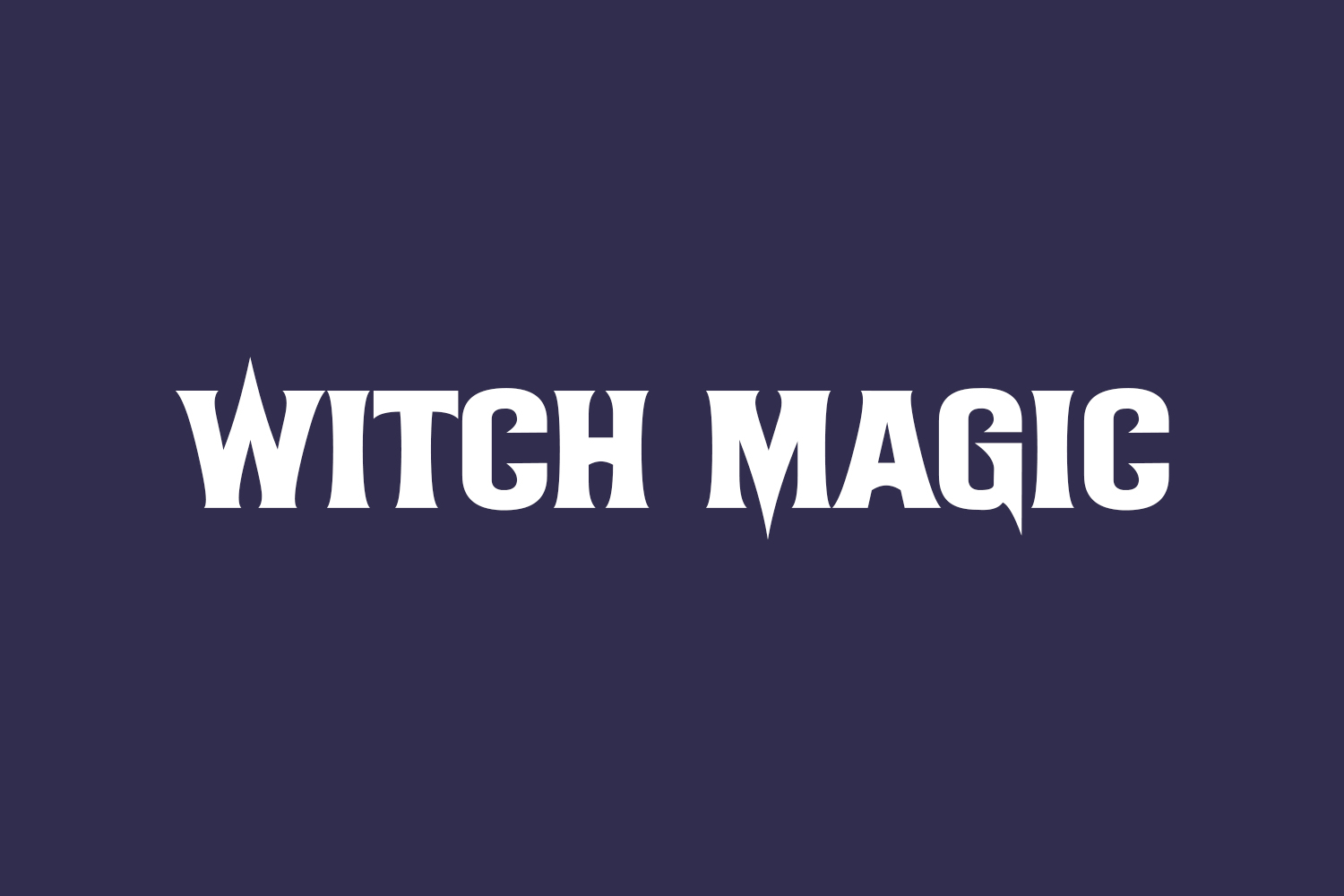
Discover the magic within the Witch Magic Free Font. Its captivating curves and mysterious charm make it the perfect choice for creating alluring invitations, eye-catching posters, and enchanting branding that is sure to evoke the magical essence you desire in every project. Witch Magic Free Font is free for personal use only. Please purchase the full version for commercial use.
Designed by Joseph Dawson